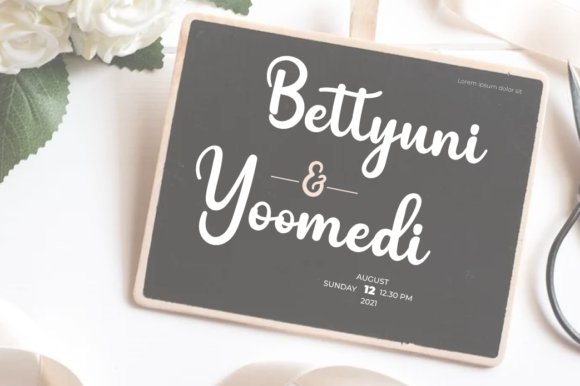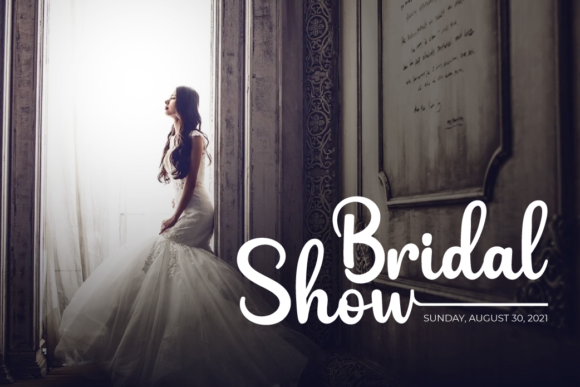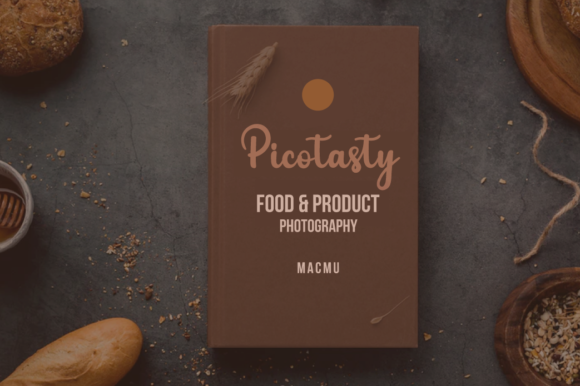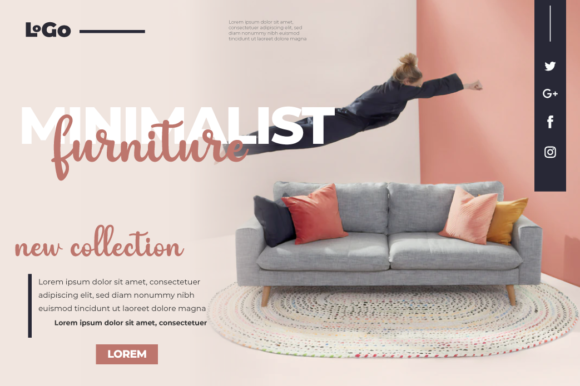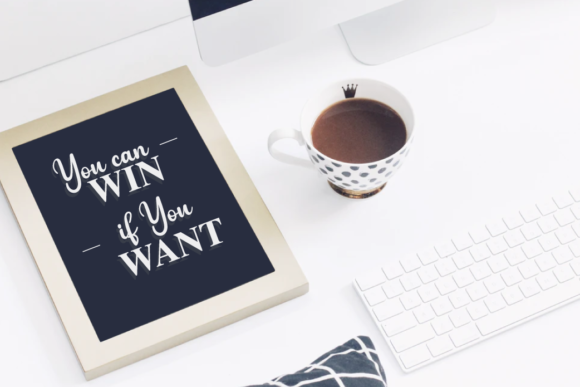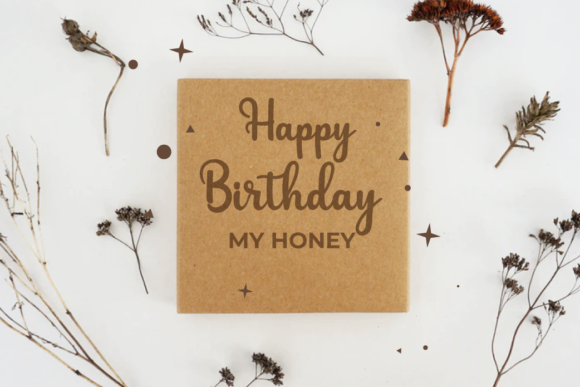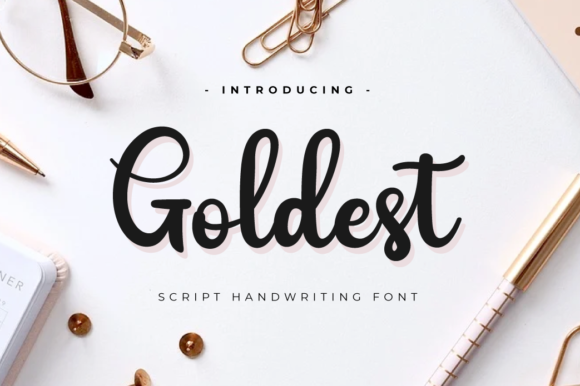
Introducing Goldest Font: The Ultimate Elegance for Your Designs
Are you tired of using the same old fonts for your designs? Look no further! Goldest Font is here to revolutionize your creative projects with its bold and elegant handwritten style. This stunning font is sure to capture your heart with its unique and timeless charm, making it perfect for designers and crafters who want to add a touch of sophistication to their work.
The Story Behind Goldest Font
Goldest Font is a carefully crafted handwritten font that boasts a distinctive and stylish appearance. Its creators aimed to design a font that would stand out from the rest, with a bold and elegant look that would instantly grab attention. The result is a font that exudes luxury, elegance, and refinement, making it ideal for a wide range of design projects.
What Makes Goldest Font So Special?
So, what sets Goldest Font apart from other fonts? Here are just a few of its remarkable features:
• Unique and Timeless Style: Goldest Font has a one-of-a-kind design that is both modern and classic. Its elegant handwritten style ensures that your designs will never go out of fashion.
• Bold and Elegant: This font is perfect for creating stunning headlines, titles, and quotes that demand attention. Its bold and elegant appearance makes it ideal for luxury brands, high-end products, and sophisticated designs.
• Versatile and Adaptable: Goldest Font can be used for a wide range of design projects, from branding and advertising to packaging and digital media.
• Easy to Read: Despite its bold and elegant appearance, Goldest Font remains highly legible, making it perfect for body text and captions.
How to Use Goldest Font in Your Designs
Goldest Font is incredibly versatile and can be used in a variety of design projects. Here are some ideas to get you started:
• Branding and Logo Design: Use Goldest Font to create a luxurious and sophisticated brand identity that stands out from the competition.
• Advertising and Marketing: Add a touch of elegance to your ad campaigns and marketing materials with Goldest Font.
• Packaging Design: Use Goldest Font to create eye-catching packaging that showcases your product in style.
• Digital Media: Add a touch of sophistication to your website, social media, or blog with Goldest Font.
Tips and Tricks for Working with Goldest Font
To get the most out of Goldest Font, here are some tips and tricks to keep in mind:
• Experiment with Font Sizes: Goldest Font looks great in a variety of font sizes, from large headlines to smaller body text.
• Play with Color: Goldest Font can be used with a range of colors, from metallic gold and silver to bold and bright hues.
• Add Texture and Patterns: Add an extra layer of depth and interest to your designs by combining Goldest Font with texture and patterns.
Goldest Font is a truly exceptional handwritten font that is sure to elevate your designs to new heights. Its bold and elegant style makes it perfect for a wide range of creative projects, from branding and advertising to packaging and digital media. With its unique and timeless charm, Goldest Font is an essential addition to any designer’s toolkit. So why wait? Fall in love with Goldest Font and start creating spectacular designs today!